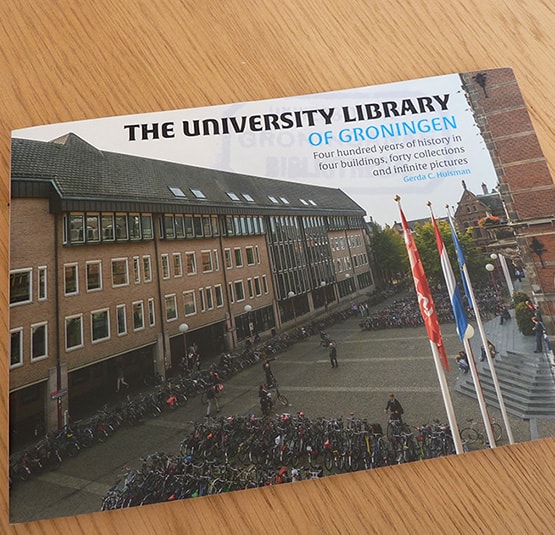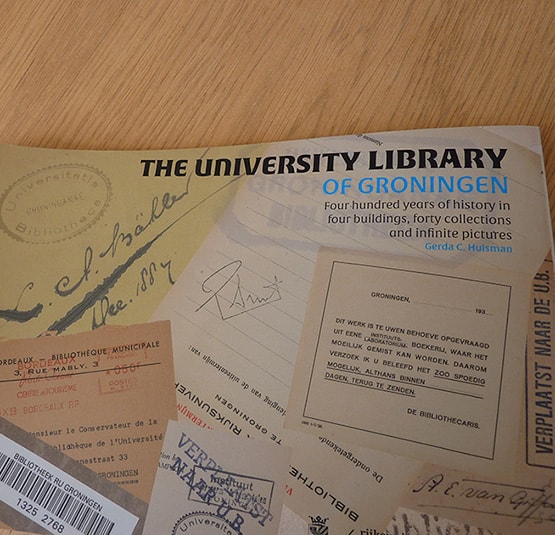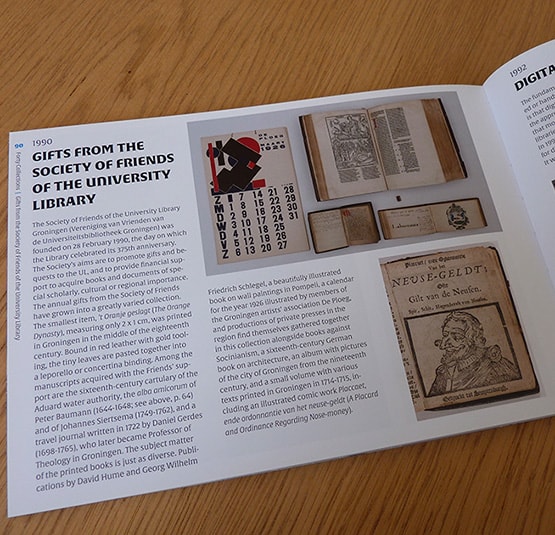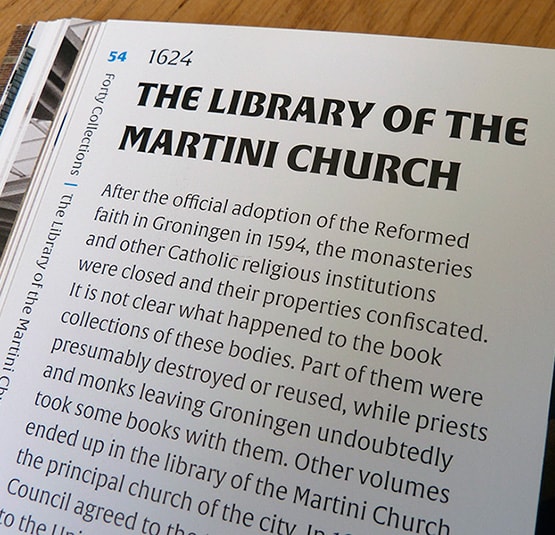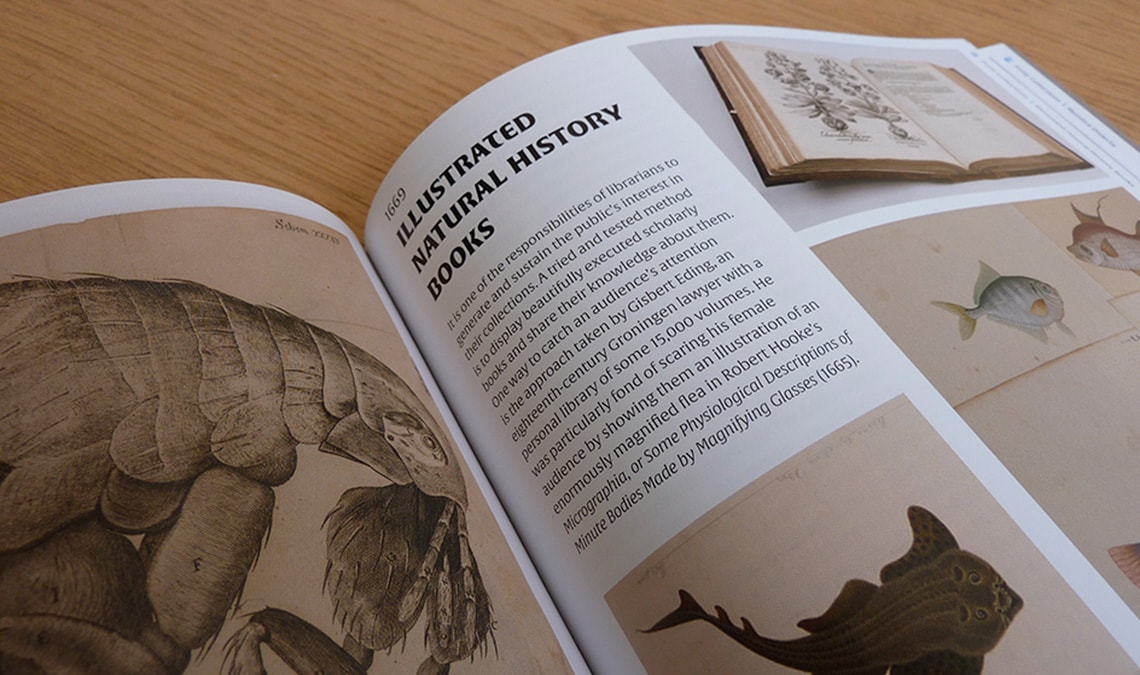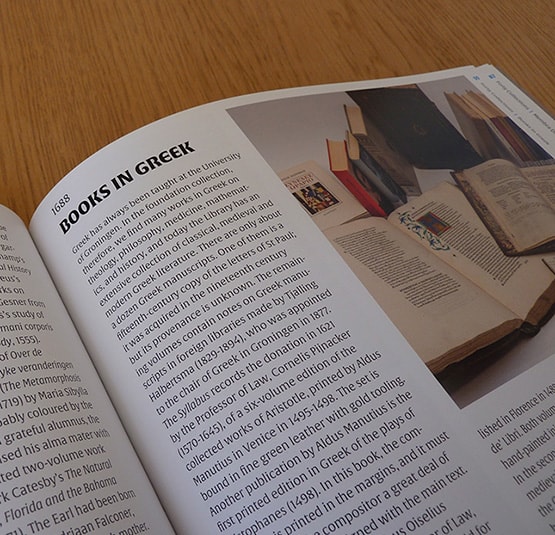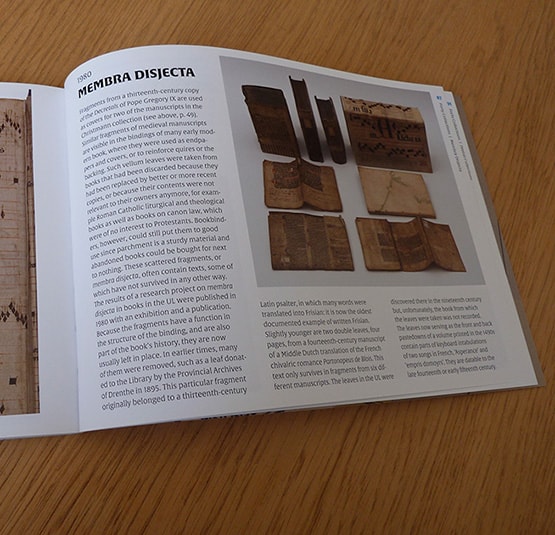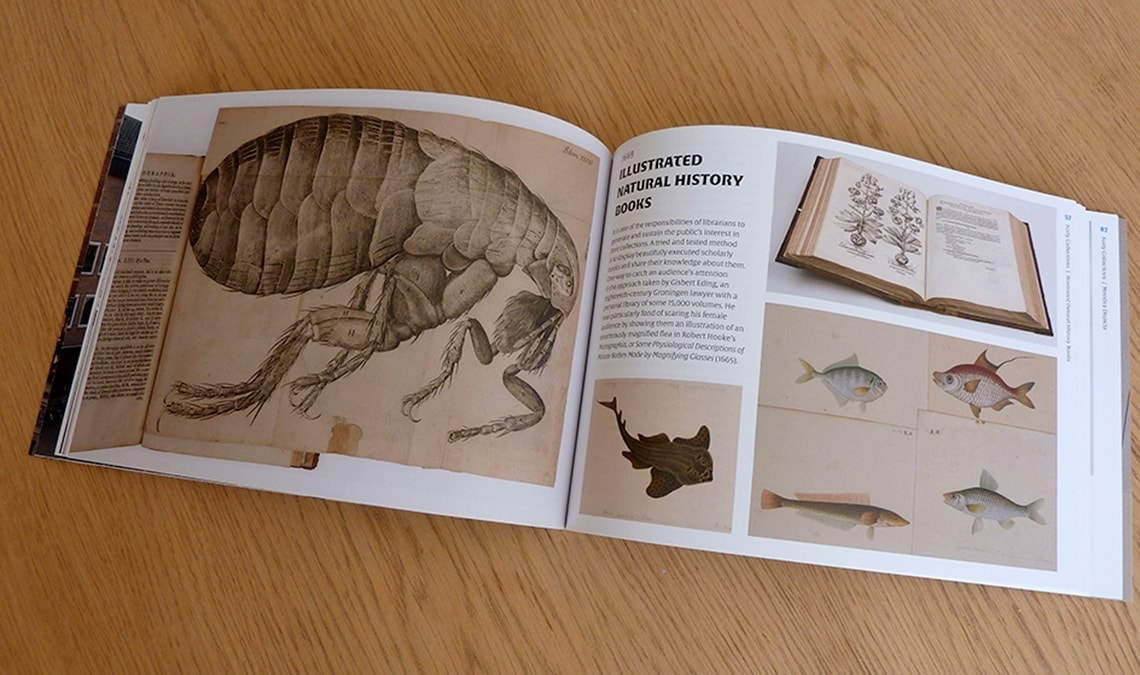
The University Library of Groningen
To celebrate the four hundred anniversary, 1615–2015, of the University Library of Groningen the designer Nynke Tiekstra (ColtsfootMedia, Rotterdam) was commisioned to design the book The University Library of Groningen. Four hundred years of history in four buildings, forty collections and infinite pictures. The brief stated that the book should reflect the evolution of the Library ‘from a single room with chained books to a modern and busy centre which is an information hub and a social meeting place as well.’
For this project Tiekstra needed a typeface that ‘could link this 400 years in library history. Gerard Unger’s typeface Alverata did that job excellent’. Additionally, ‘the playfulness charmed the author of the book instantly, when she noticed the irregularities of the type in the first proof-design’. The result is that ‘Alverata genuinely supports the book’s presentation of the many delightful, fascinating and rare items in the Library’s care. And thanks to the typeface, the book has become a balanced and contemporary impression of the treasures preserved by the Library’.